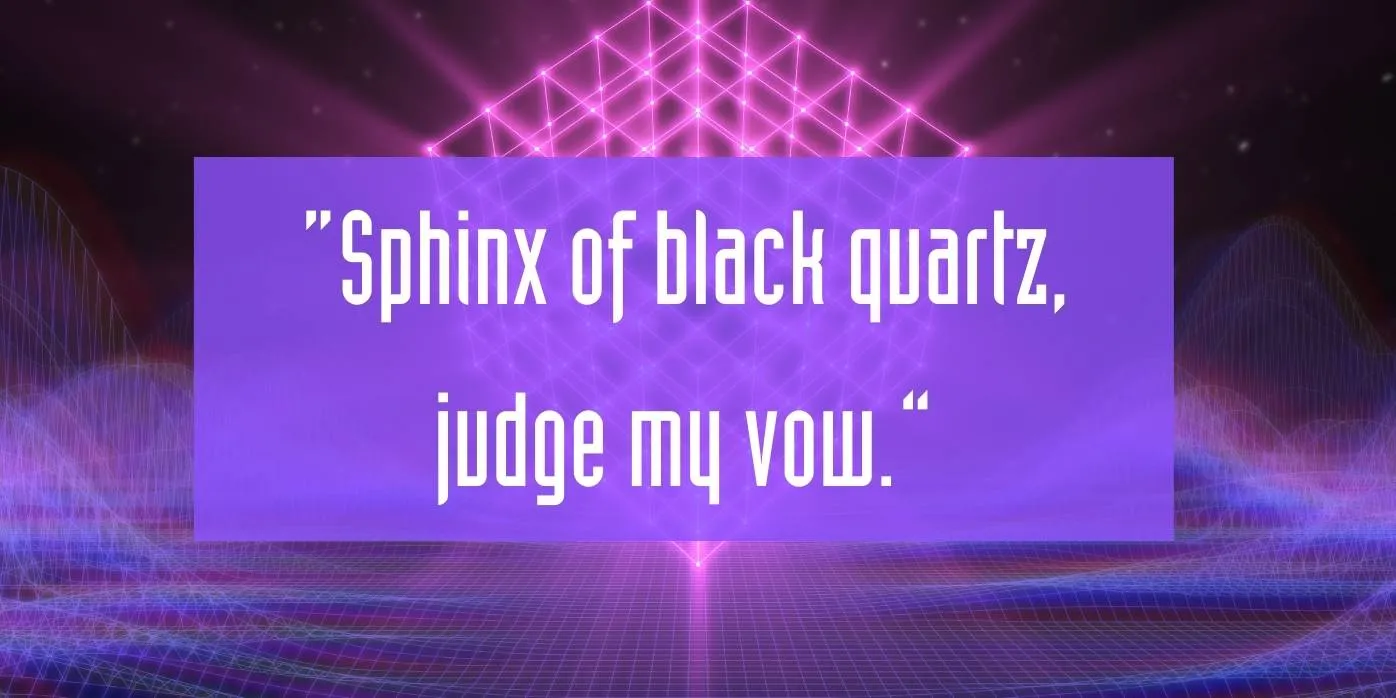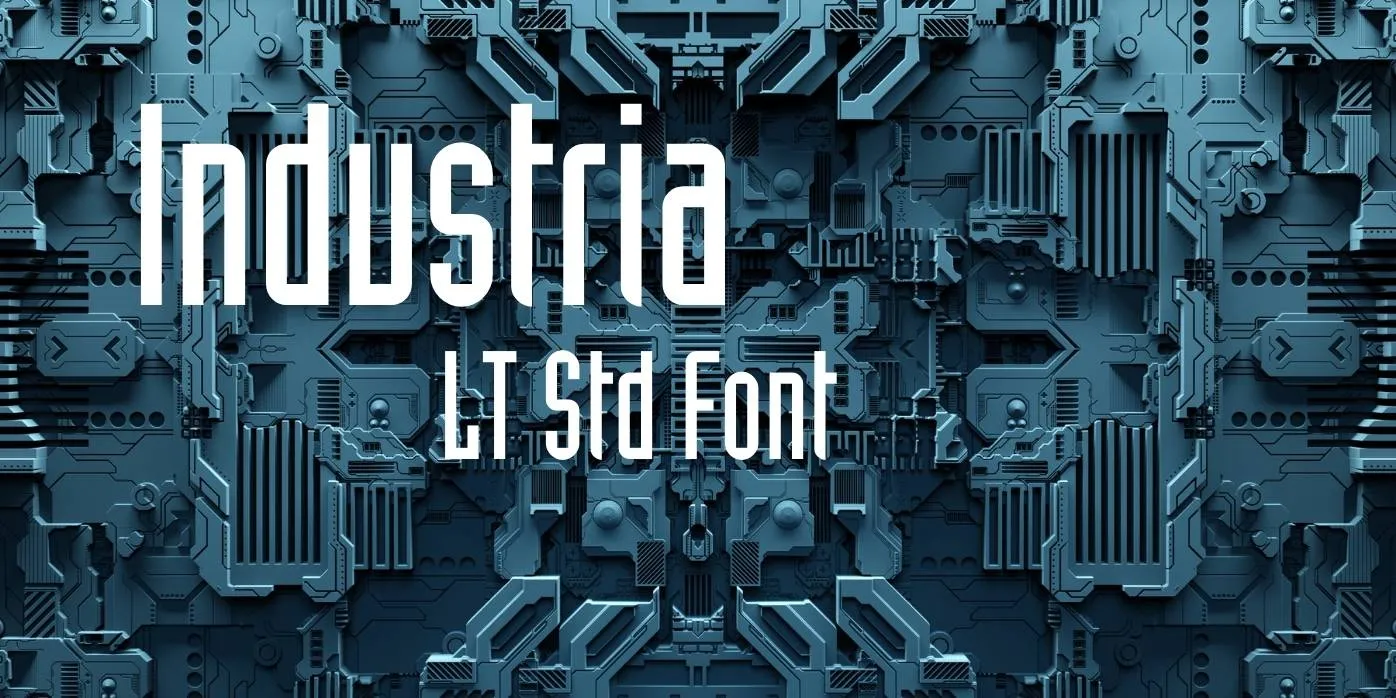
Industria LT Std Font
Today, we are consulting on the very famous Industria LT Std Font that was designed by Neville Brody. This stunning font belongs to the Display typeface. This typeface is perfect for headlines, posters, and other large types of text. It has a very strong and powerful look that is perfect for grabbing attention.
This attractive Font was originally released in 1990 by the Font library. This font was very popular in the early 1990s, but it has slowly been phased out over time. However, it still remains a popular choice for designers who are looking for a unique and attention-grabbing font. This Typeface is best for Adobe.
Freshman Font is similar to this astonishing font family. If you are looking for a font that will make your designs stand out, then this typeface is a great choice. This classic typeface has keen and clean features that will give your text a sharp look. This cute Font is perfect for any project that requires a strong and powerful look.